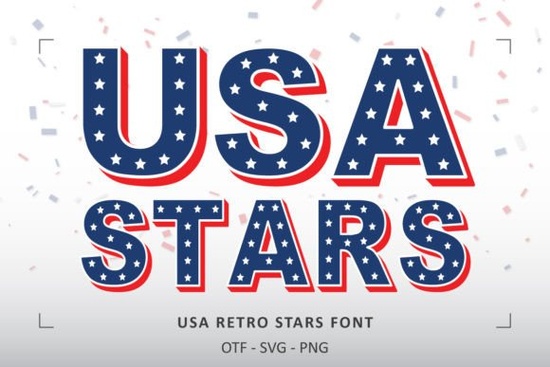
If you're looking for a bold, patriotic font that stands out on 4th of July or Memorial Day projects, the USA Retro Stars Font is a solid choice. Its red, white, and blue color scheme carries meaningful symbolism red for valor, white for purity, and blue for perseverance making it more than just eye-catching. Each letter features a star-shaped detail, giving your designs a festive, retro vibe that feels both nostalgic and fresh.
What Can You Use This Font For?
The USA Retro Stars Font works well across many creative projects. Whether you’re designing t-shirts, greeting cards, stickers, or even restaurant menus, this font adds instant character. It’s especially effective when you want to highlight national pride in a casual, fun way. The stars aren’t just decorative they help draw attention and give your work a dynamic look.
For print-on-demand sellers, this font can be a go-to option for seasonal merchandise. Think summer sale banners, patriotic apparel, or themed gift boxes. Crafters using Cricut or Silhouette machines will appreciate the black version, which is compatible with cutting tools. That means you can cut out physical designs without hassle.
How Do You Use the Color Version?
The colored version of the font (with red, white, and blue) is best used in design software like Adobe Photoshop, Illustrator, Silhouette Studio, or Inkscape. These programs support multi-color fonts, so you can keep the full visual impact. However, note that the OTF and TTF files for the color version won’t work in Cricut Design Space or similar platforms.
Why This Font Works for Creative Projects
- Instant theme recognition: The colors and stars make it clear this is a patriotic design at a glance.
- Flexible use: Great for digital and printed materials alike.
- Stands out on social media: Perfect for holiday posts, event promotions, or product listings.
- Time-tested style: The retro look fits well with vintage-inspired branding.
To get the most from the USA Retro Stars Font, start by testing it in a simple mockup. Try placing it over a background with subtle textures like faded paper or light grid lines to see how it reads. Adjust size and spacing to ensure readability, especially in smaller formats like stickers or icons.
Remember: the black version is your best bet if you plan to cut anything physically. Always preview your final design at actual size before printing or cutting. And if you're sharing your project online, include a brief description of the font’s meaning many people appreciate knowing why certain colors were chosen.
Quick Tip for Success
- Use the black version for physical cuts (Cricut, Silhouette).
- Stick to the color version in Photoshop, Illustrator, or Inkscape.
- Pair with neutral backgrounds to let the font shine.
- Test small versions first stars can get crowded at tiny sizes.
With a little practice, you’ll find yourself reaching for this font again and again during patriotic seasons. It’s reliable, visually strong, and full of personality exactly what makes a good design stand out.